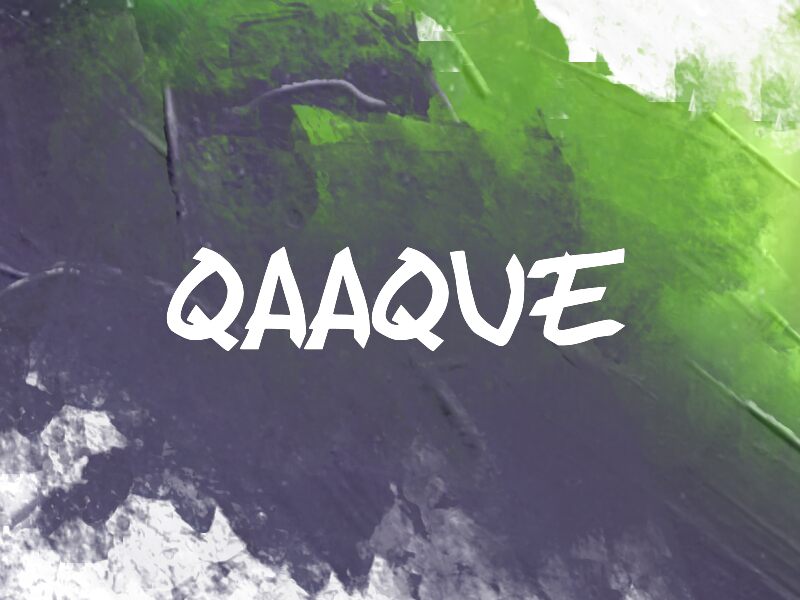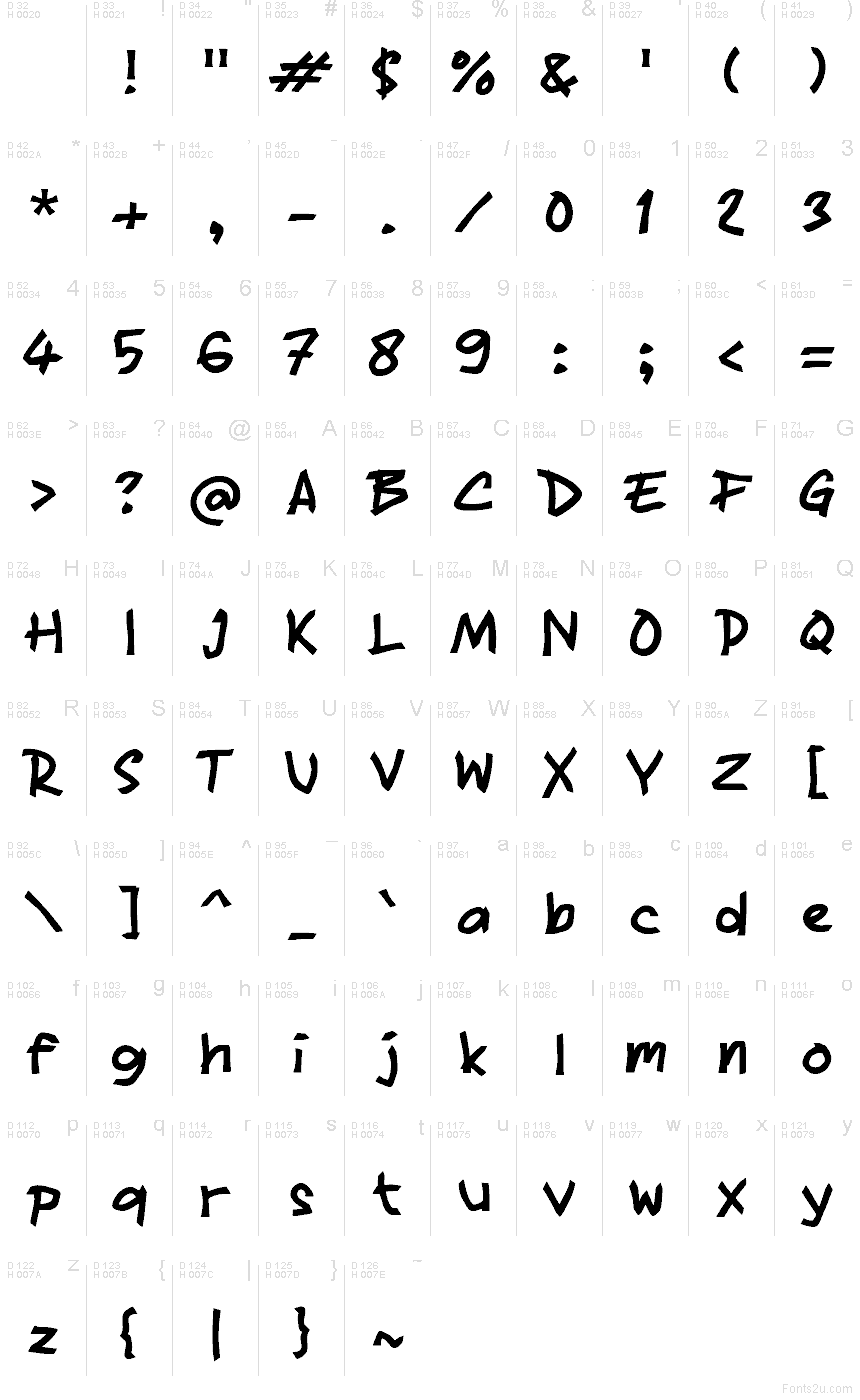
Qaaque font by wep is a free graffiti font that captures the snap of a quick marker tag without losing clarity. Its strokes feel inky and slightly uneven, like real hand-scrawled letters dragged across a wall, yet the spacing stays tidy enough for longer words and short phrases. The angled curves and slanted rhythm give it a fast, shouted energy that still reads cleanly on screens and at a distance.
Using Qaaque, you can bring a streetwise edge to posters, album covers, YouTube thumbnails, streetwear logos, stickers, and bold event flyers. This free font thrives in big, punchy headlines where its brushy texture and forward tilt can really breathe. It pairs easily with a simple geometric sans serif set smaller for body text, letting Qaaque handle the attitude while the supporting type keeps everything grounded.
Qaaque